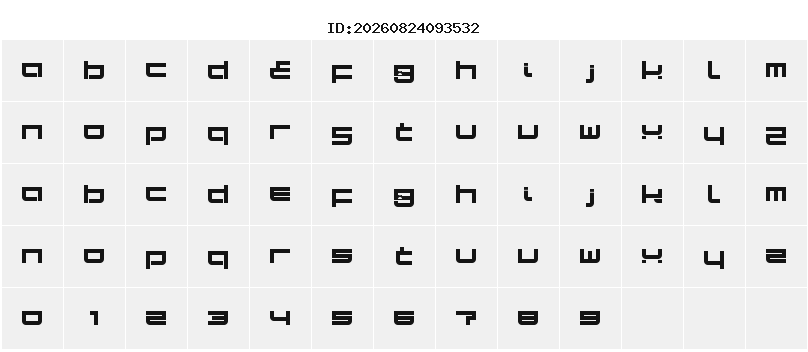
• Font Name: Sampa LDR
• Full Font Name: Sampa LDR Regular
• Designer: Michał “Neoqueto” Nowak
• Description: ‚ÄúSampa LDR‚Äù was built with FontStruct
About Sampa LDR.ttf
Sampa LDR.ttf is a modern, elegant sans-serif font designed for ultimate readability and visual harmony. Perfect for branding, headlines, web design, and print materials.